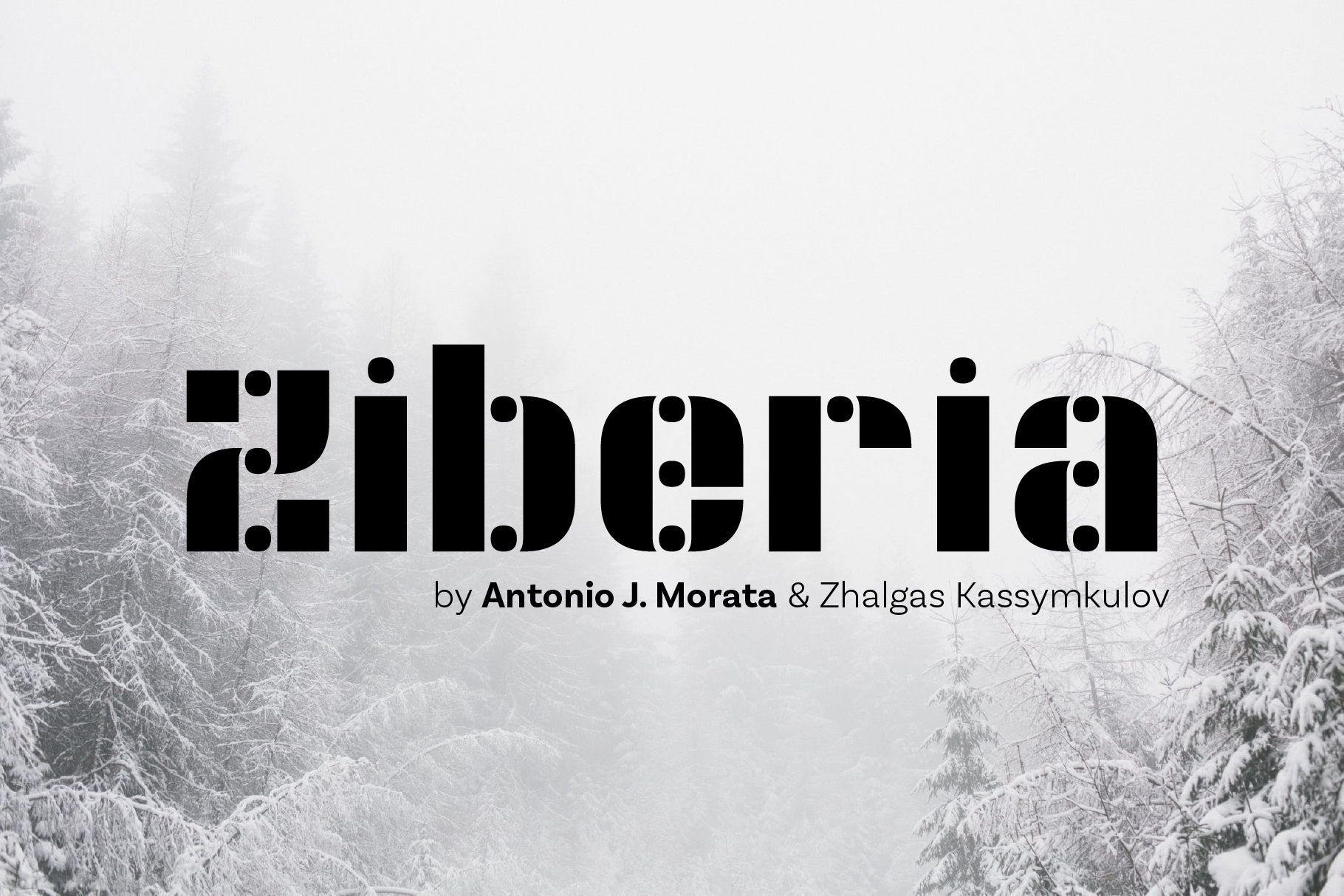
KD Ziberia - Display Font
KD Ziberia is font originally designed by Antonio J. Morata in 2011. After ten years, it's now expanded by Zhalgas Kassymkulov into a full font with a total of 718 glyphs including Extended Latin and Cyrillic scripts. Modular consistent nature of the letter gives it a smooth flow while reading and is best at large sizes.